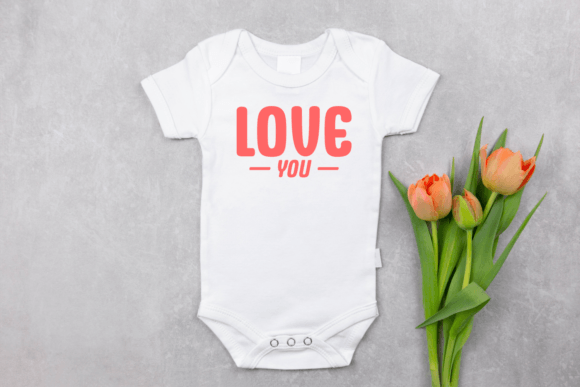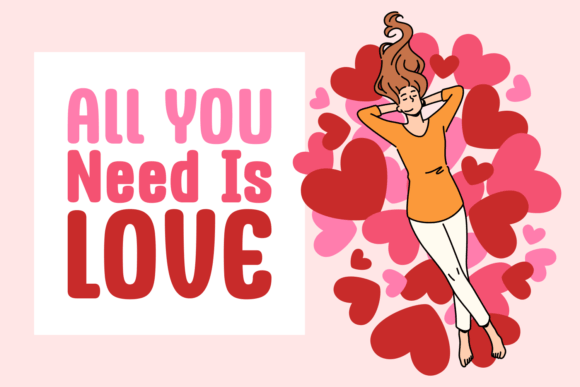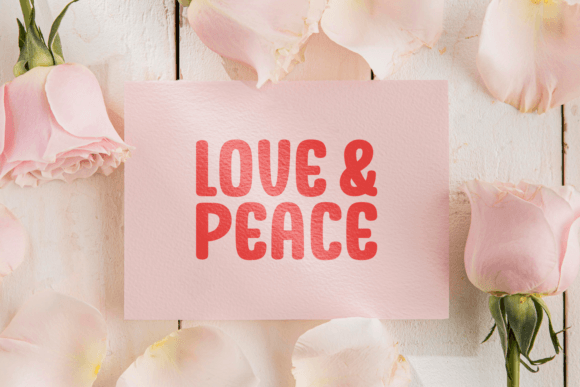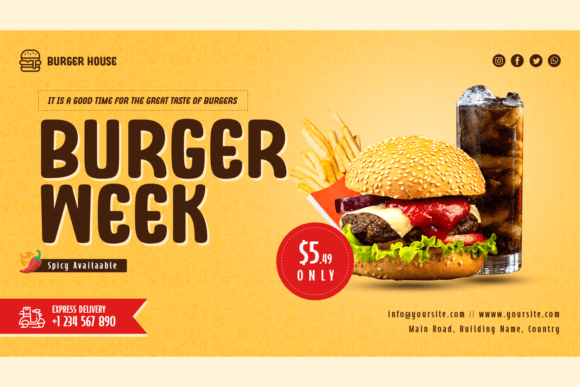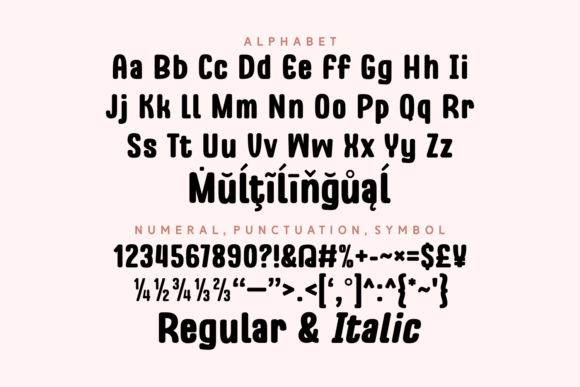
Introducing Calming Hearts Font: The Perfect Handwritten Font for Your Creative Projects
Are you a designer, crafter, or DIY enthusiast looking for a unique and versatile font to elevate your creative projects? Look no further than Calming Hearts Font, a thick and friendly handwritten font that’s perfect for a wide range of applications. In this article, we’ll explore the features and benefits of Calming Hearts Font, and show you how to make the most of this amazing font in your designs.
What is Calming Hearts Font?
Calming Hearts Font is a bold and versatile handwritten font that’s designed to add a touch of warmth and personality to your designs. With its thick and friendly characters, this font is perfect for creating eye-catching posters, banners, t-shirt typography designs, websites, apps, quotes, invitations, and many more. Whether you’re a professional designer or a DIY enthusiast, Calming Hearts Font is a great choice for anyone looking to add a personal touch to their creative projects.
Key Features of Calming Hearts Font
So, what makes Calming Hearts Font so special? Here are just a few of its key features:
- Thick and friendly characters: Calming Hearts Font features bold and playful characters that are sure to grab attention.
- Versatile design: This font is perfect for a wide range of applications, from posters and banners to websites and social media graphics.
- PUA encoded: Calming Hearts Font is PUA encoded, which means you can easily access the adorable glyphs, including the heart-shaped characters.
Uses for Calming Hearts Font
So, what can you use Calming Hearts Font for? The possibilities are endless! Here are just a few ideas to get you started:
- Posters and banners: Create eye-catching posters and banners with Calming Hearts Font, perfect for advertising, promotions, or events.
- T-shirt typography designs: Add a personal touch to your t-shirt designs with Calming Hearts Font, perfect for DIY enthusiasts and professional designers alike.
- Websites and apps: Use Calming Hearts Font to add a touch of warmth and personality to your website or app, perfect for creating a unique and engaging user experience.
- Quotes and social media graphics: Create inspiring quotes and social media graphics with Calming Hearts Font, perfect for sharing on social media or using in blog posts.
- Invitations and stationery: Use Calming Hearts Font to create beautiful invitations, stationery, and other paper crafts, perfect for special occasions or everyday use.
Tips for Using Calming Hearts Font
Here are a few tips for getting the most out of Calming Hearts Font:
- Experiment with different colors and textures: Calming Hearts Font looks great in a variety of colors and textures, so don’t be afraid to experiment and find the perfect combination for your design.
- Use it with other fonts: Calming Hearts Font pairs well with other fonts, so try combining it with a sans-serif font for a bold and modern look.
- Pay attention to spacing and kerning: Make sure to adjust the spacing and kerning of Calming Hearts Font to ensure it looks its best in your design.
Calming Hearts Font is a versatile and charming handwritten font that’s perfect for designers, crafters, and DIY enthusiasts. With its thick and friendly characters, PUA encoding, and easy-to-use design, this font is sure to become a favorite in your creative toolkit. Whether you’re creating posters, banners, t-shirt designs, or social media graphics, Calming Hearts Font is the perfect choice for adding a touch of warmth and personality to your designs.